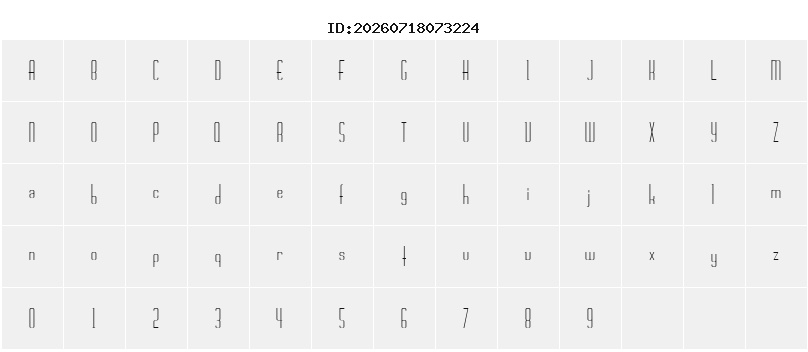
• Font Name: Chasline
• Full Font Name: Chasline Normal
About Chasline.ttf
Chasline.ttf is a modern, elegant sans-serif font designed for ultimate readability and visual harmony. Perfect for branding, headlines, web design, and print materials.